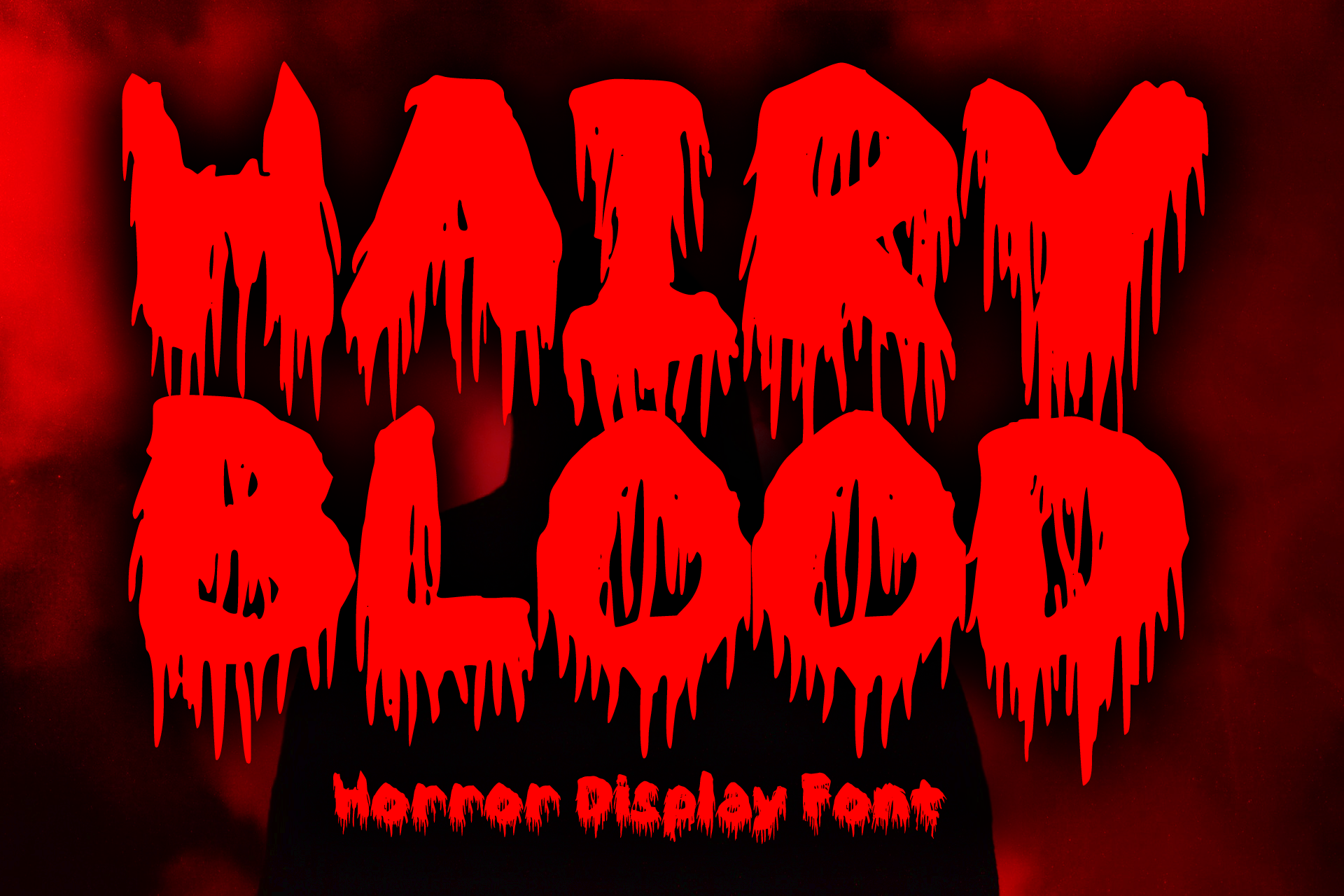
Hairy Blood Font
Hairy Blood is a cool ink drips font with bold characteristic inspired by vintage horror movies, comics, and Metal music that makes this font looks so cool and fun to use. It will be perfect for your horror and Halloween themed needs! You can use it for anything ranging from t-shirts and clothing, for your scary book designs, Halloween party needs, greeting cards, stickers, posters, banners, or anything that needs a horror touch. Try it to create fabulous designs and feel the horror and Halloween vibes with it!